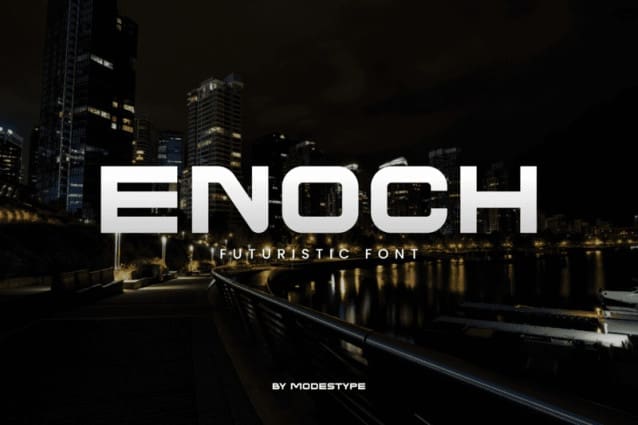
Enoch Futuristic Font
Enoch Futuristic Font – the futuristic font that’s perfect for creating bold, attention-grabbing designs. Whether you’re creating a movie title, music video, or social media graphics, ENOCH’s cutout style and wide shape make it the perfect choice.
Its uppercase letters emphasize the digital world we live in, while the lowercase letters feature a regular basis style that’s highly readable. Plus, with its modern sans serif style, Enoch Futuristic is perfect for Instagram and YouTube graphics that need to make an impact.